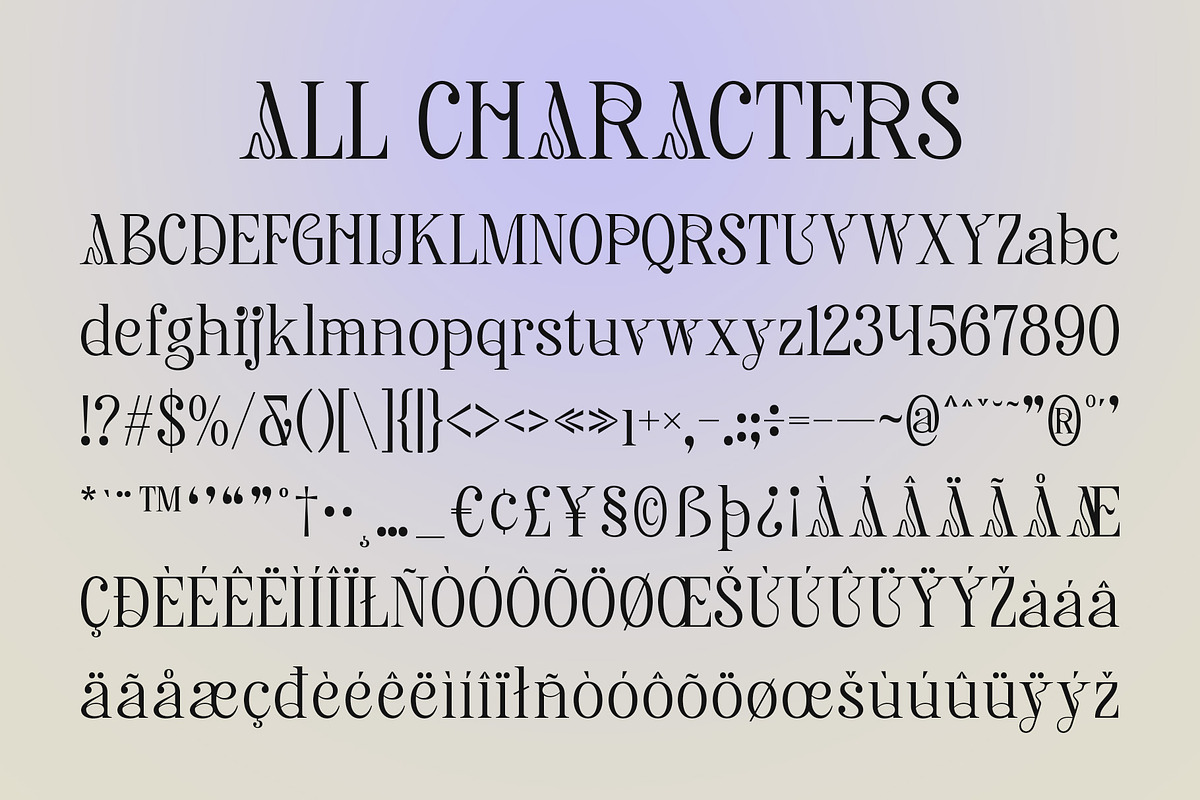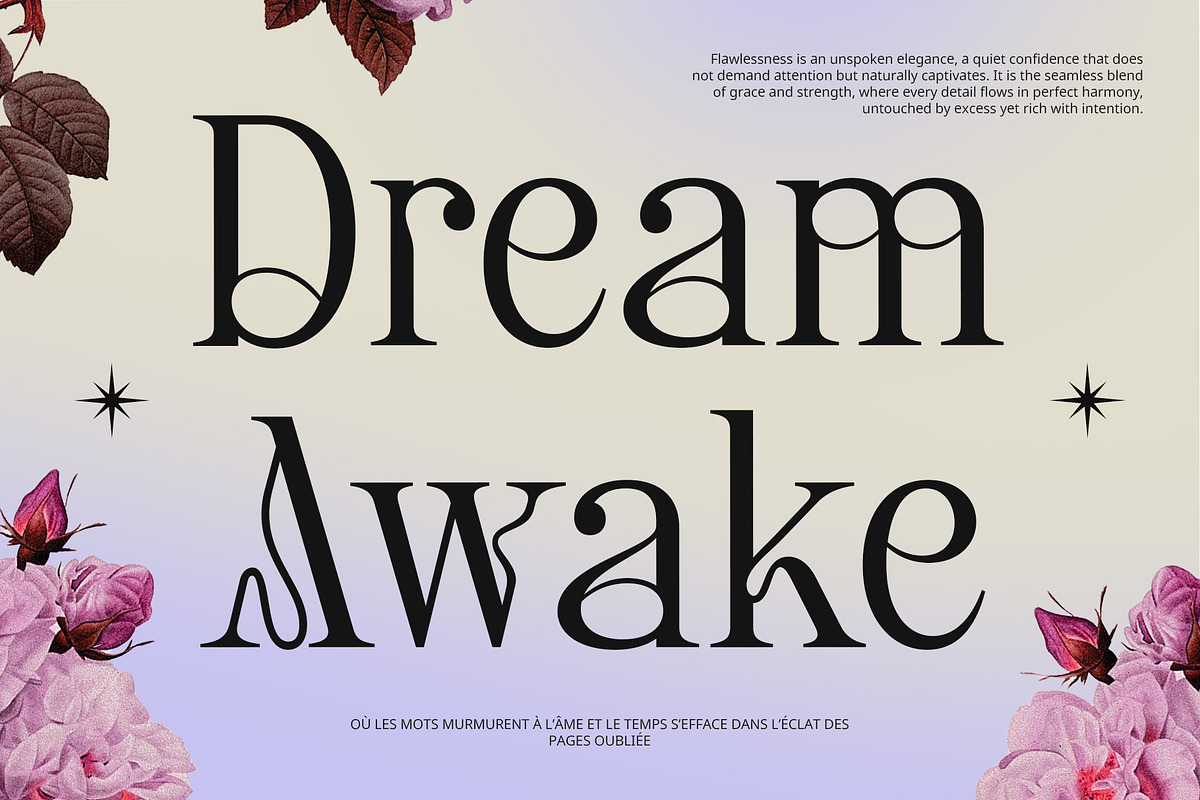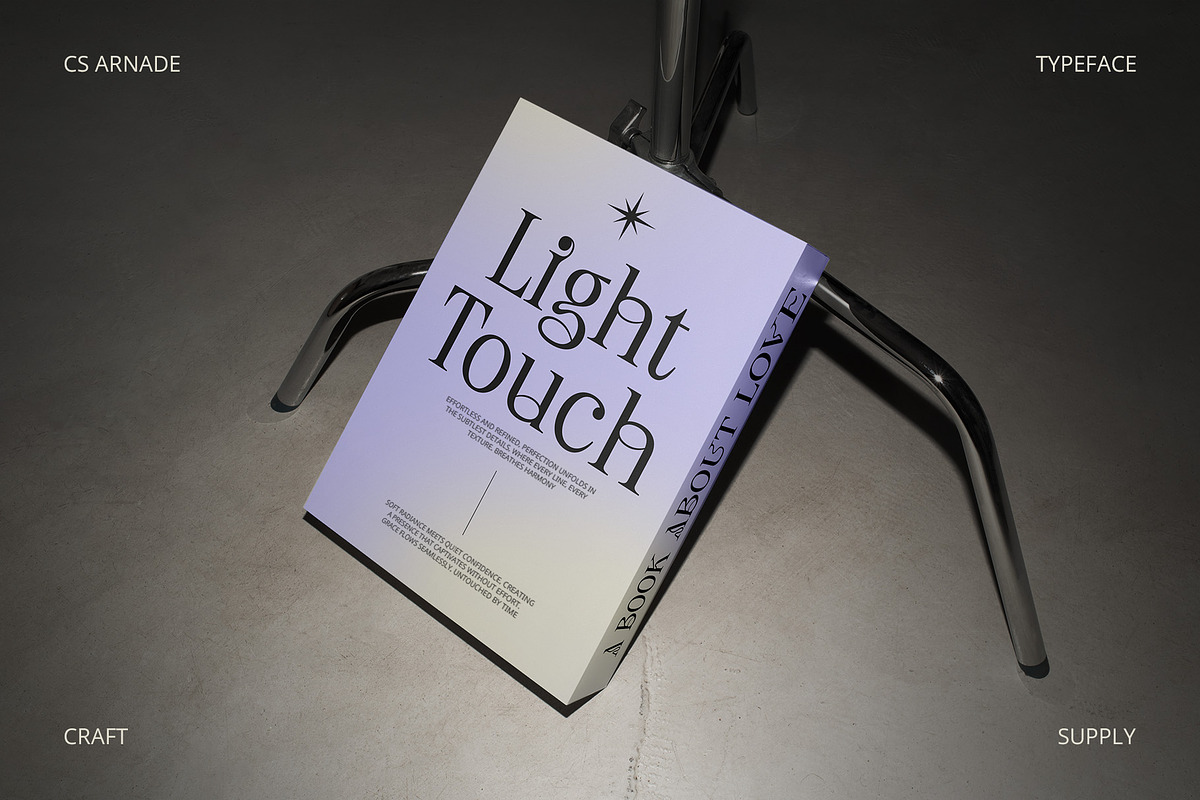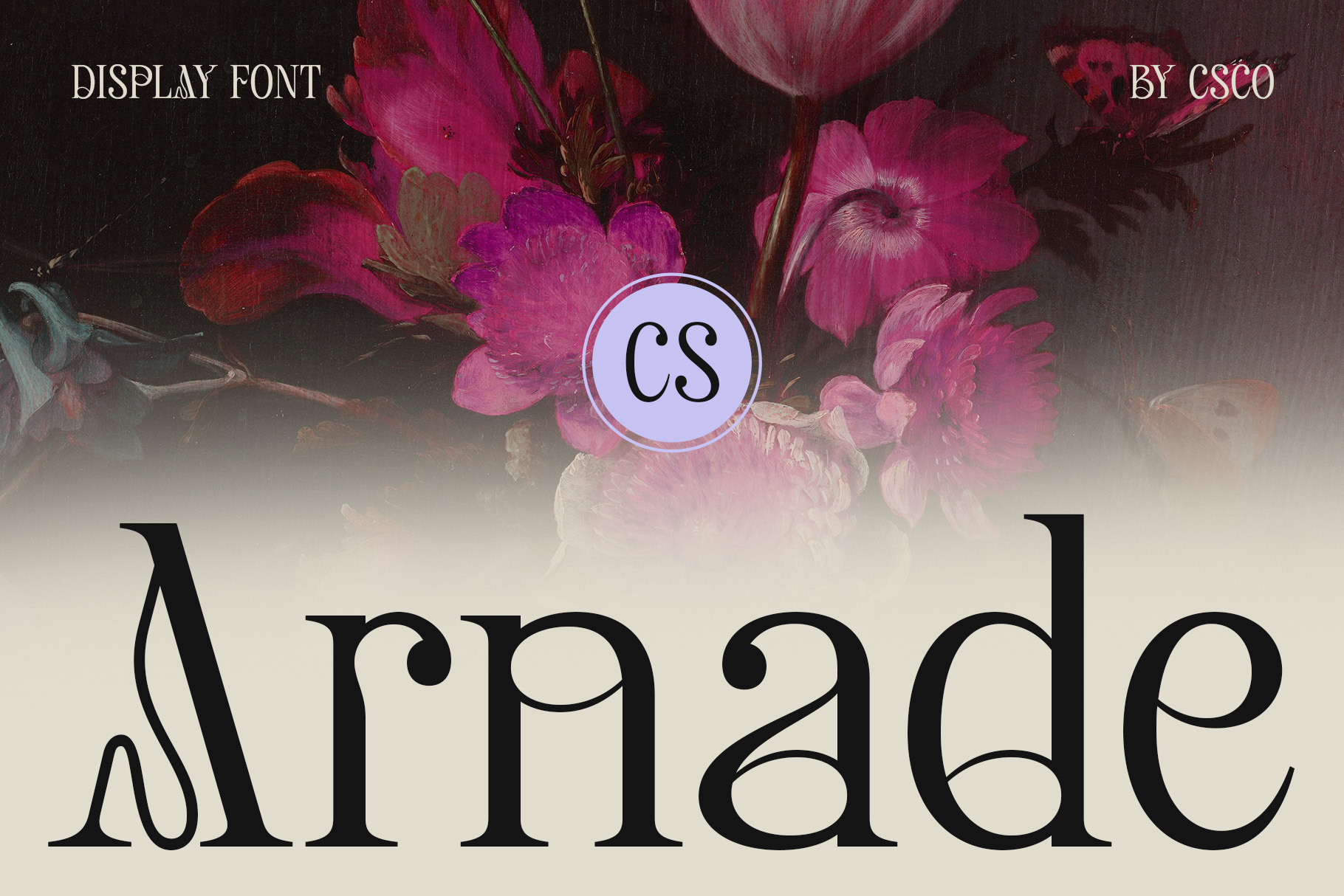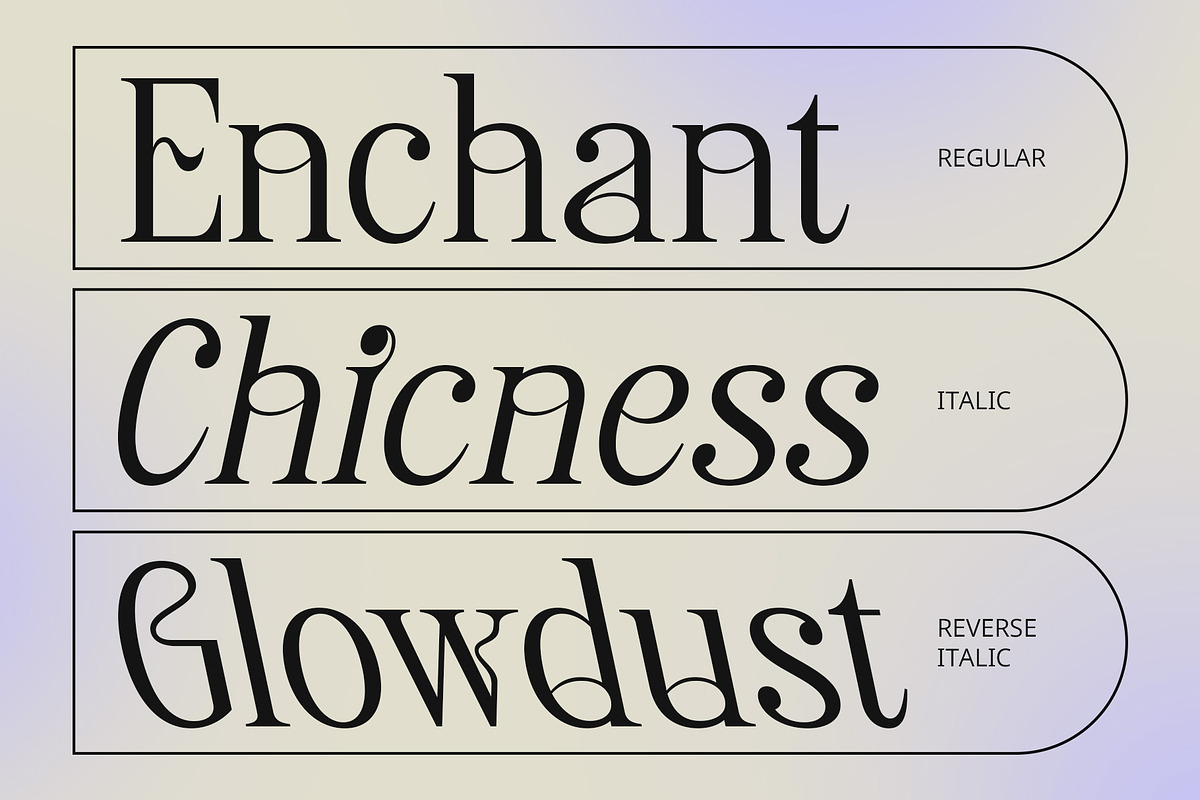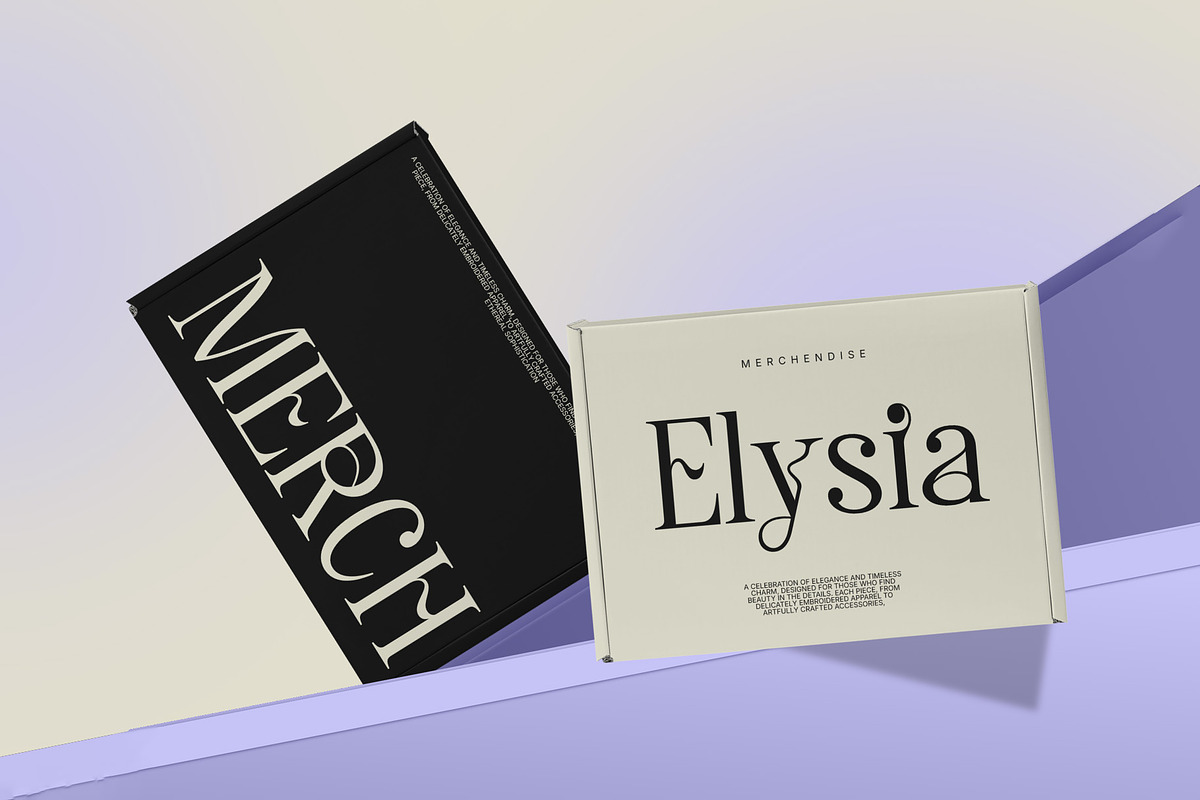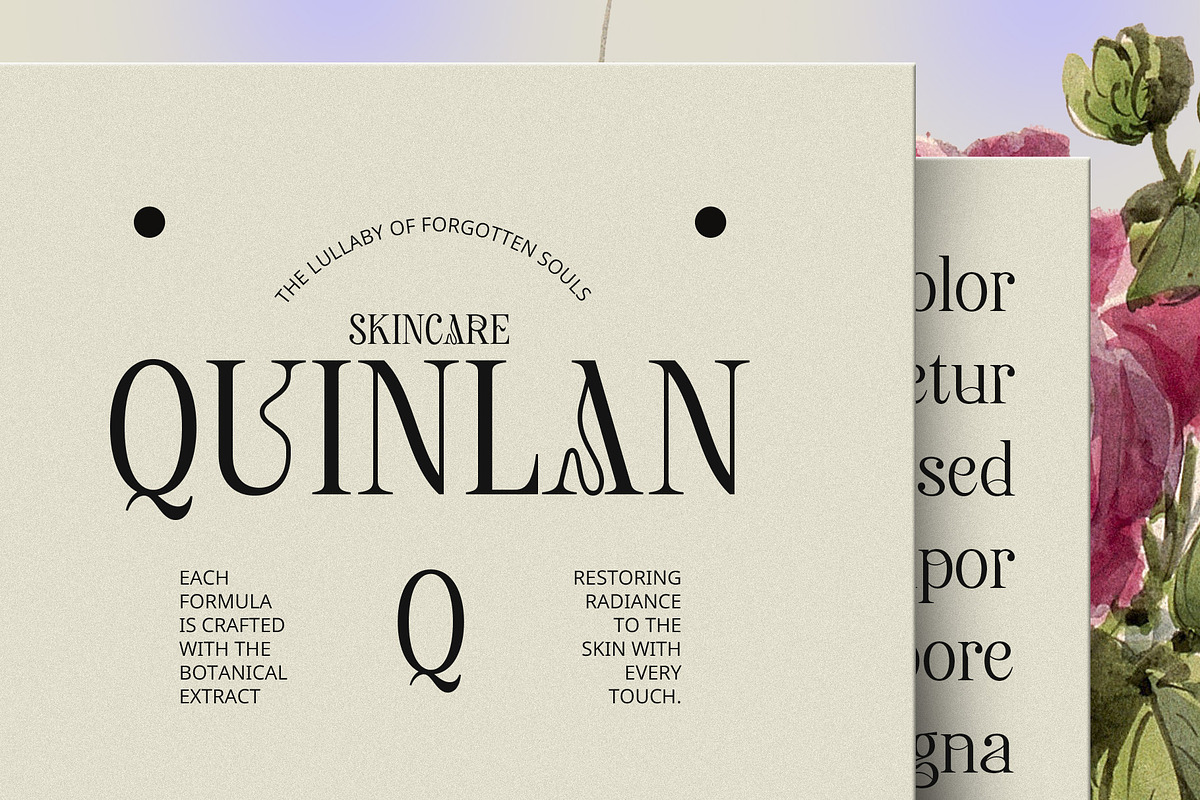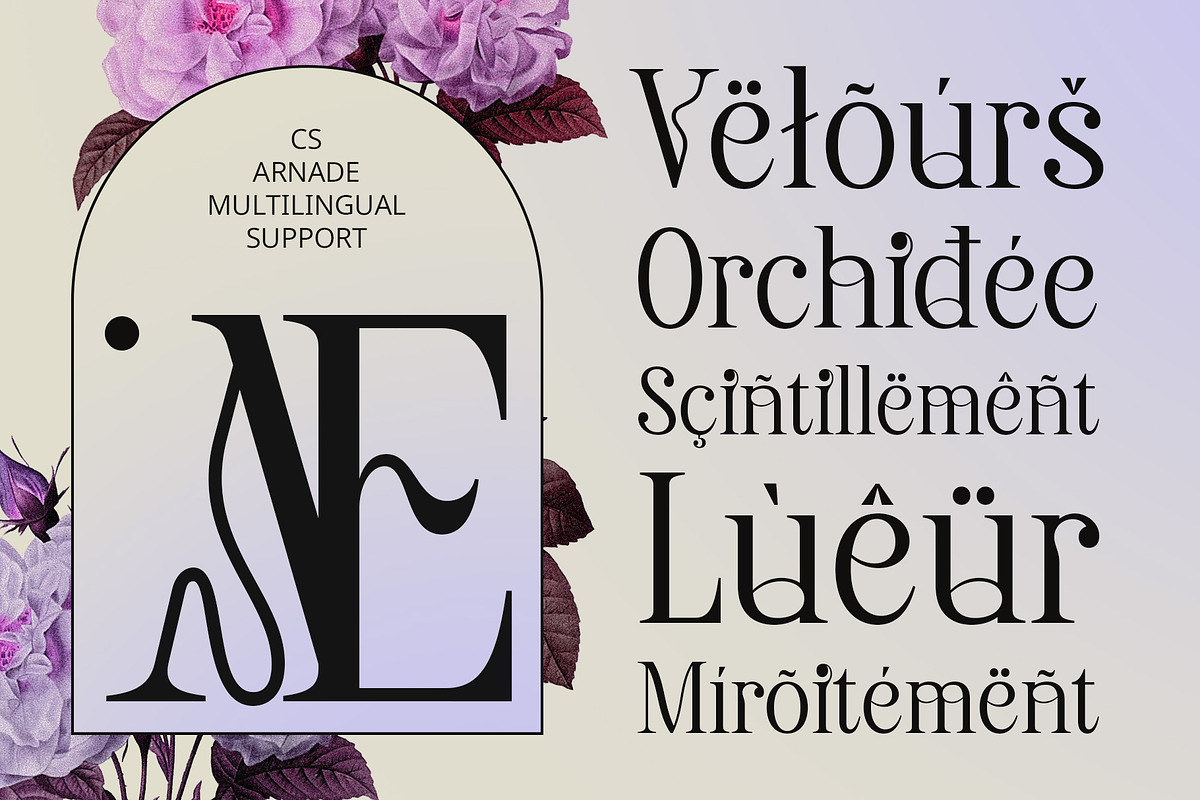
CS Arnade – Aesthetic Font
CS Arnade Font: The Essence of Modern Aesthetic Elegance
Modern Display Serif with a Refined Touch CS Arnade is a sophisticated display serif font that embodies modern elegance and aesthetic appeal. With its delicate yet confident serifs and harmonious proportions, this font exudes a graceful and exclusive presence, making it a perfect choice for luxury and high-end designs. Its refined details and structured forms create a balance between classic sophistication and contemporary minimalism, ensuring a timeless and elegant look.
Minimalist Design for a Timeless Look Designed with clean lines and a contemporary structure, CS Arnade offers a minimalist yet striking appearance. Its balanced letterforms and subtle contrasts create a sense of effortless beauty, perfect for projects that require a polished and high-end aesthetic. The font’s well-proportioned characters make it ideal for branding, editorial layouts, and elegant typography.
Luxury and Femininity in Typography The combination of fine serifs and smooth curves gives CS Arnade a soft yet sophisticated feel, making it perfect for beauty branding, fashion editorials, wedding stationery, and upscale packaging. Its luxurious essence ensures a captivating visual appeal.
Versatile for Elegant Branding and Design Whether for premium logos, editorial headlines, or elegant promotional materials, CS Arnade adapts effortlessly to both digital and print media. Its modern aesthetic and graceful presence make it an essential choice for designs that seek to be timeless and captivating.
- CS Arnade Regular
- CS Arnade Italic
- CS Arnade Reverse Italic